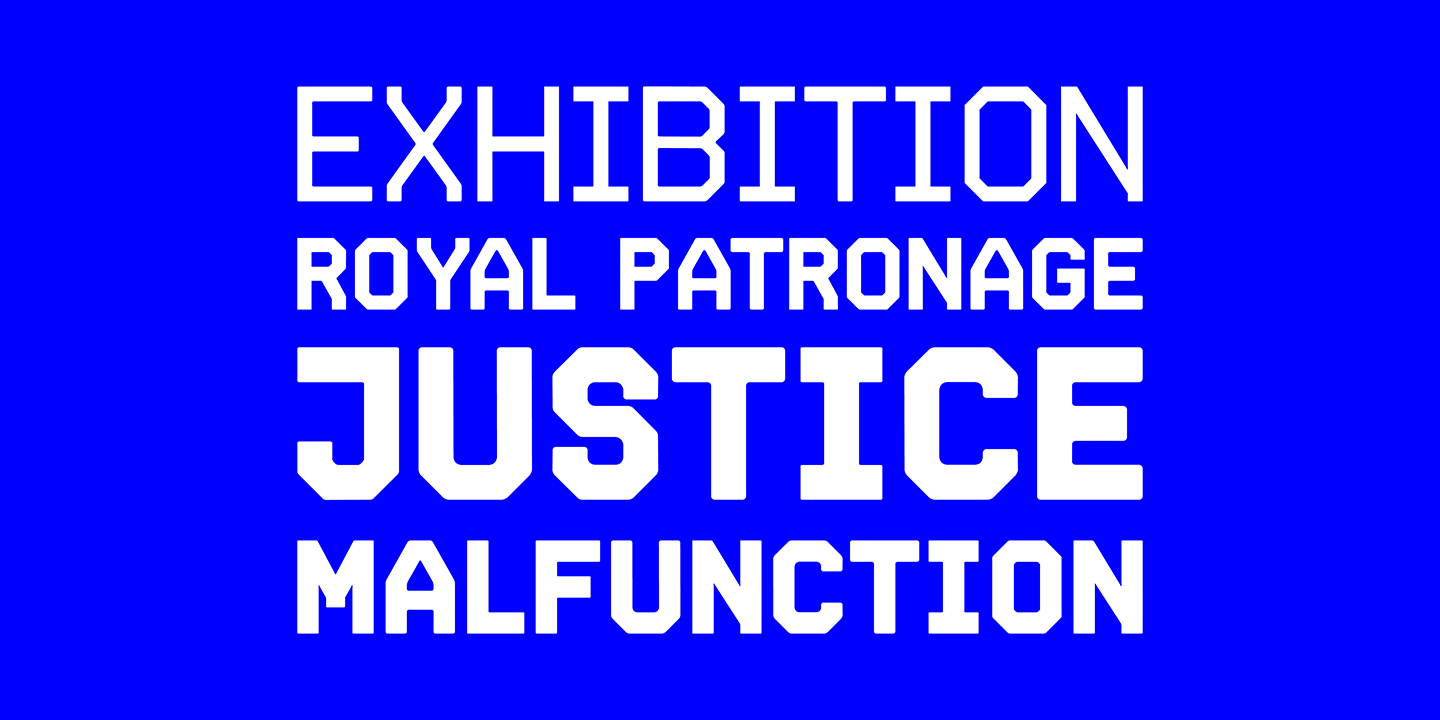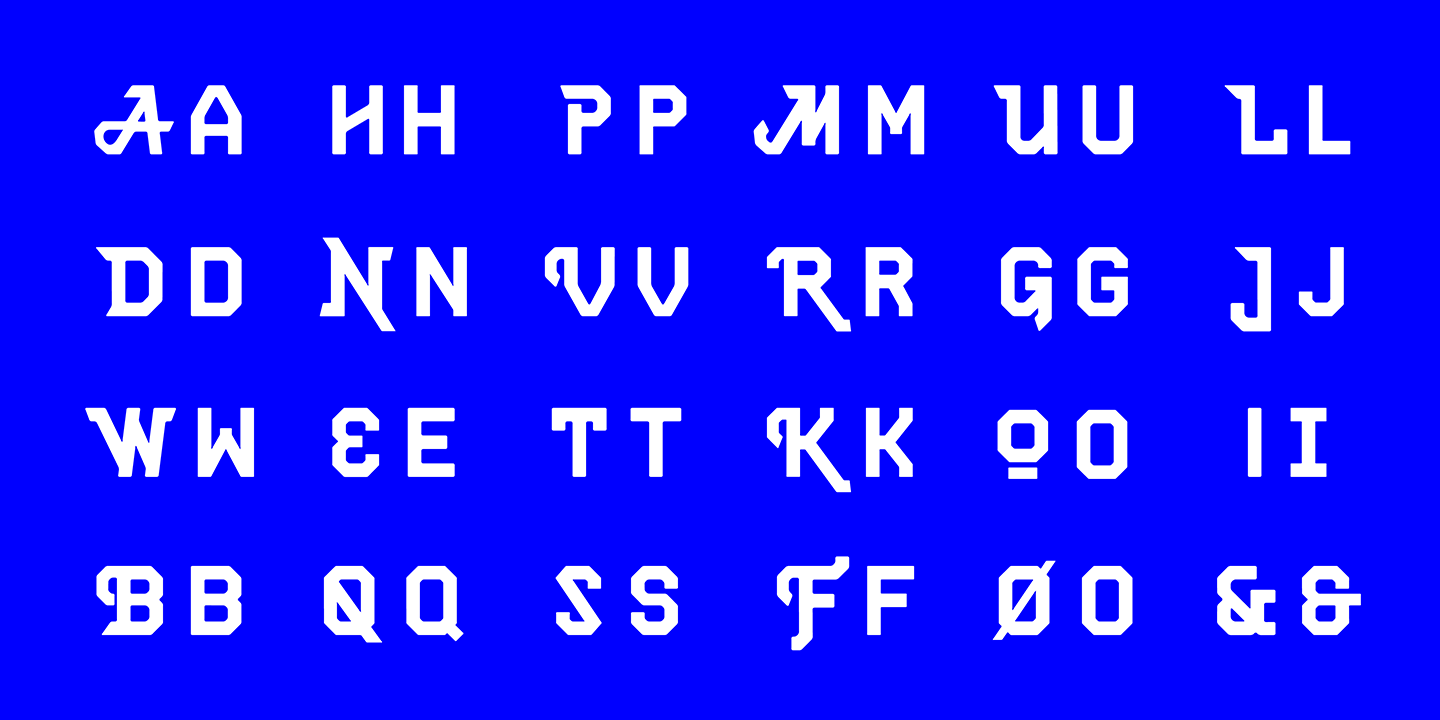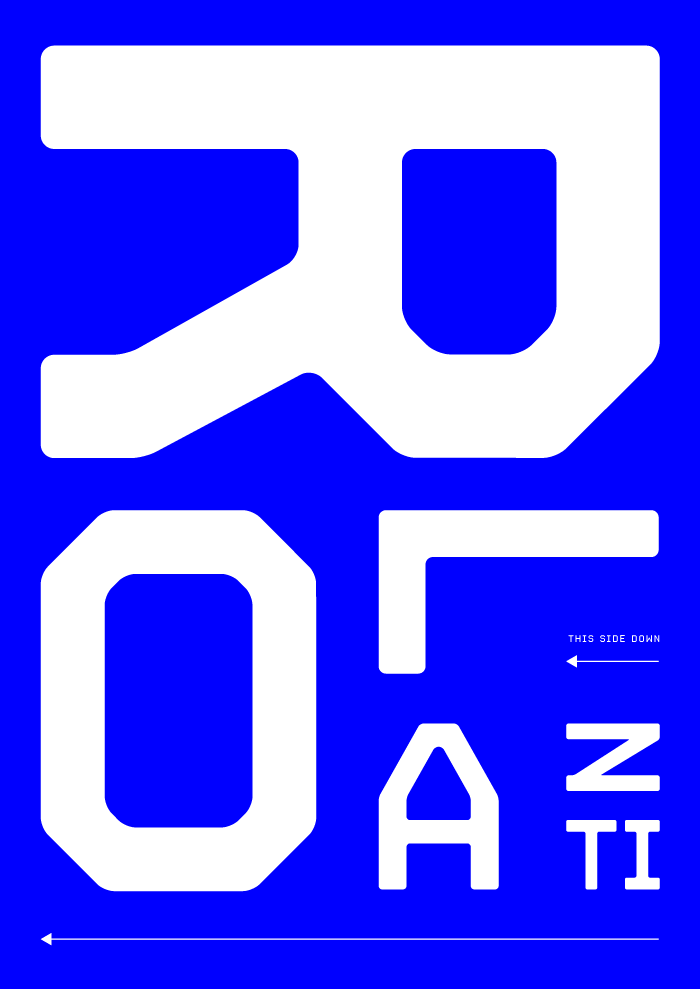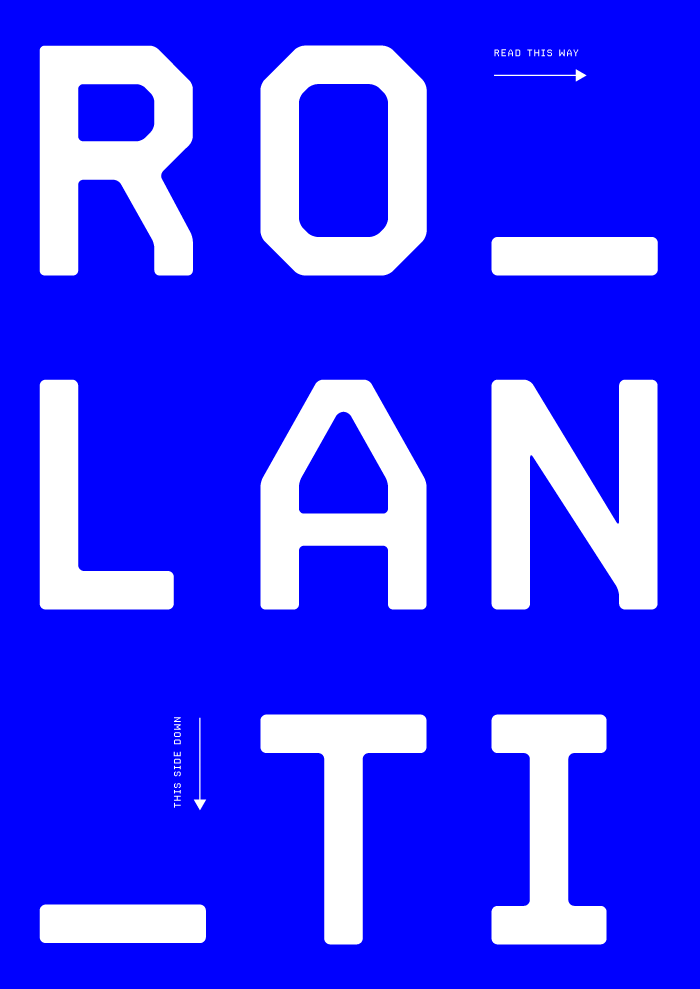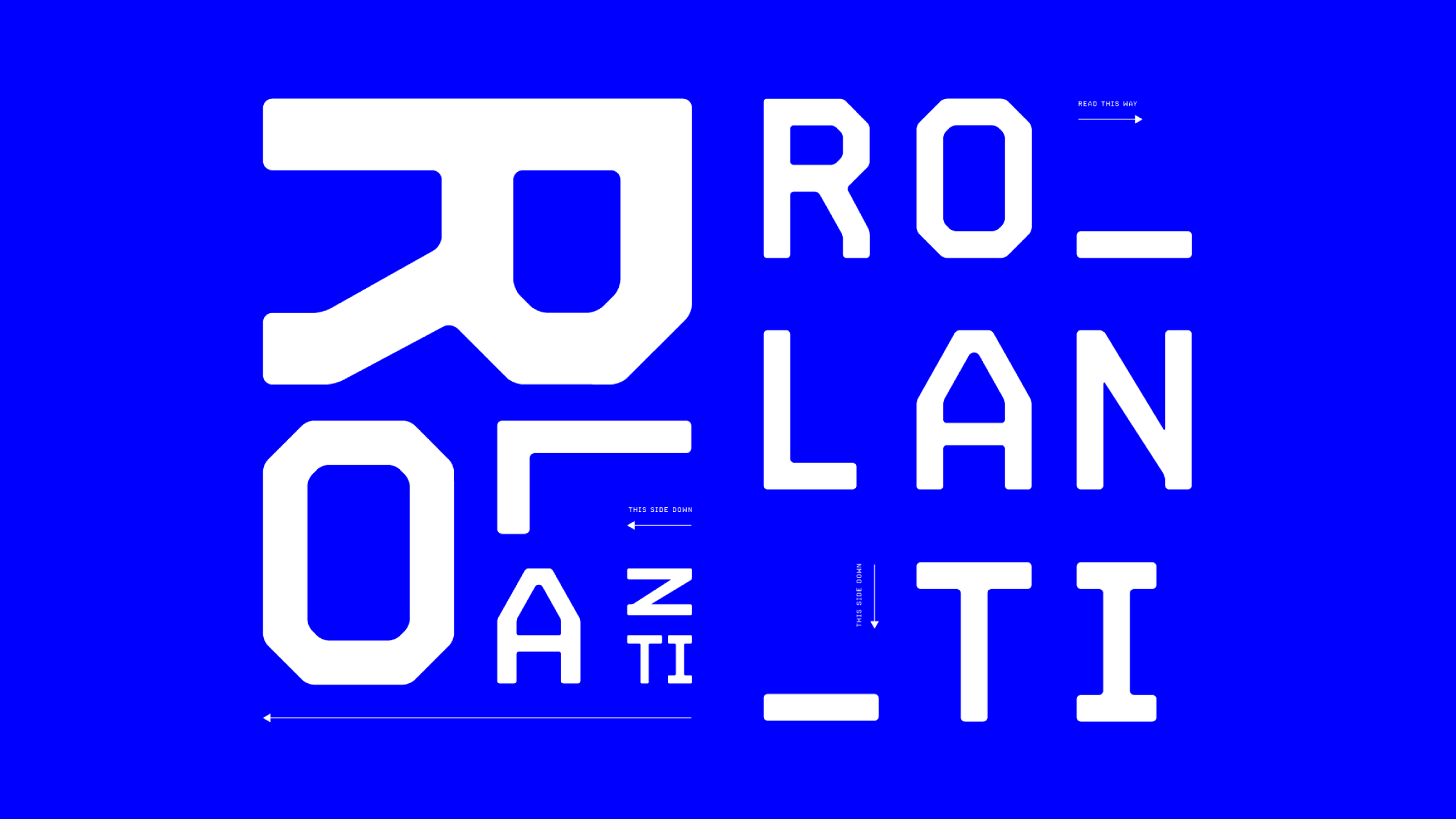
ROLANTI THIN
ROLANTI REGULAR
ROLANTI SEMIBOLD
ROLANTI BOLD
ROLANTI ULTRA
Rolanti family is a display typeface designed for impact and technical feel. It offers decorative effects by its alternative forms which is uncommon among typefaces like this. Technical look is from grid based proportions and angular cuts. Rolanti merges a strong look and style together.
Doğukan Karapınar